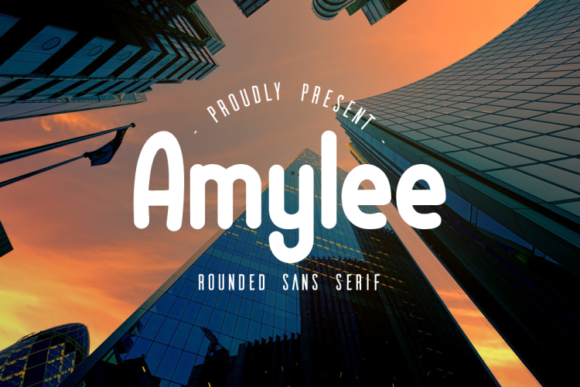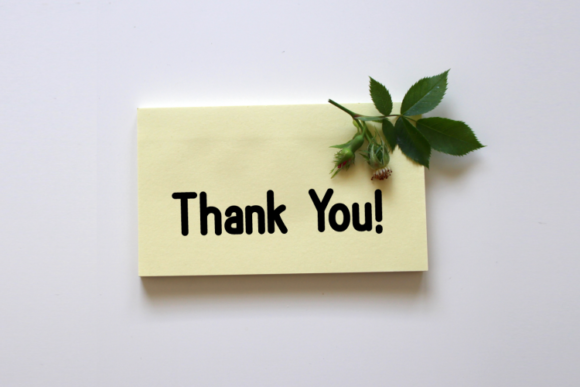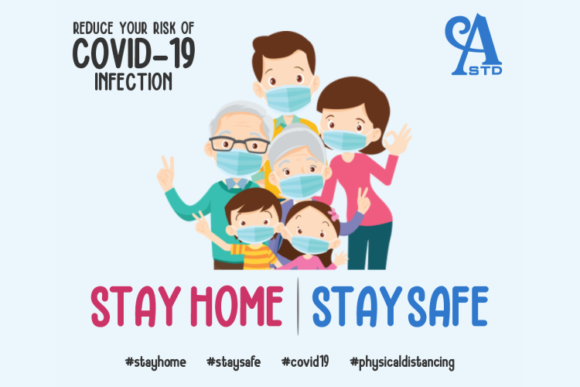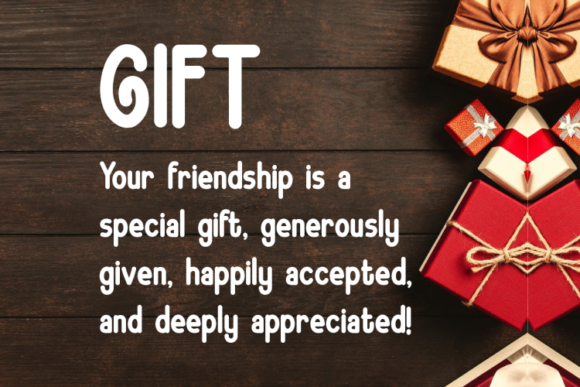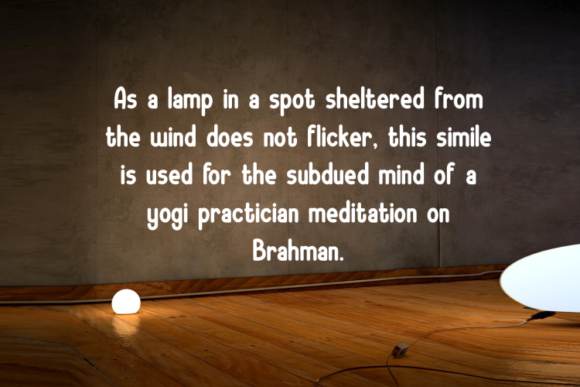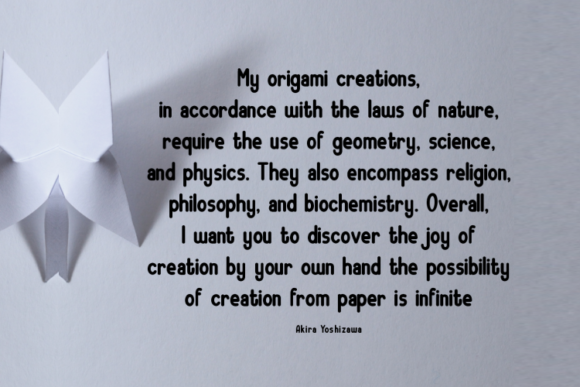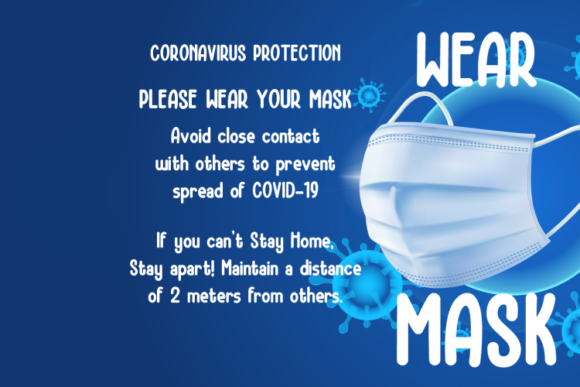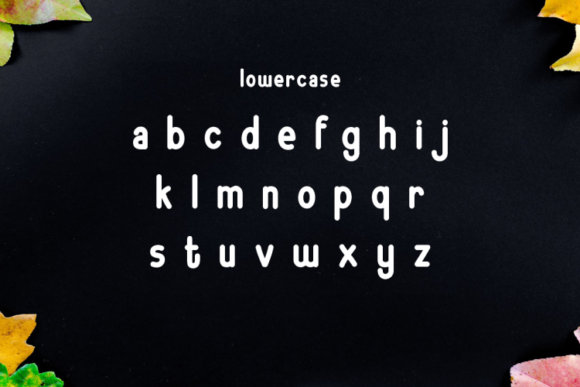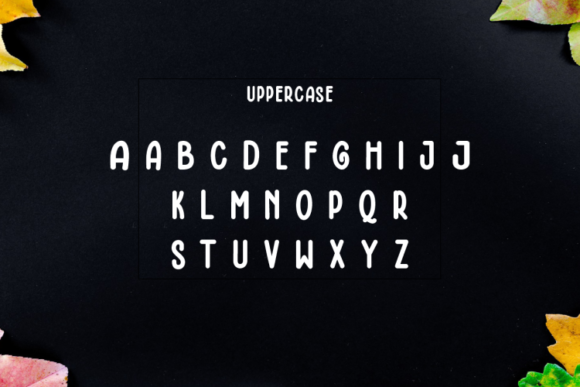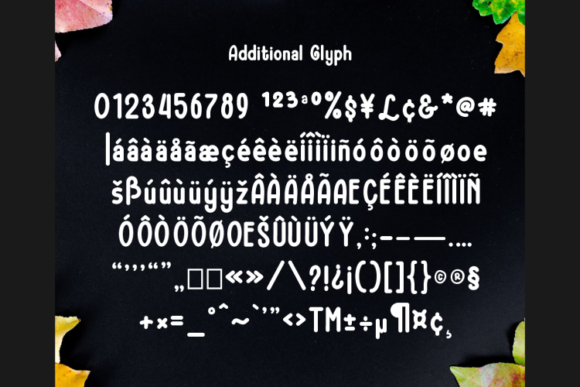
Amylee Font
About Amylee Font
Amylee is a rounded sans serif font inspired by the trends of technology, automotive, and sports nowadays. You can easily create a cool logo, branding, and promotion with this font.